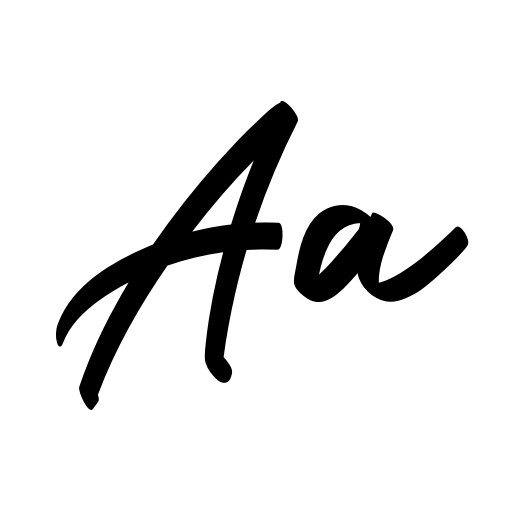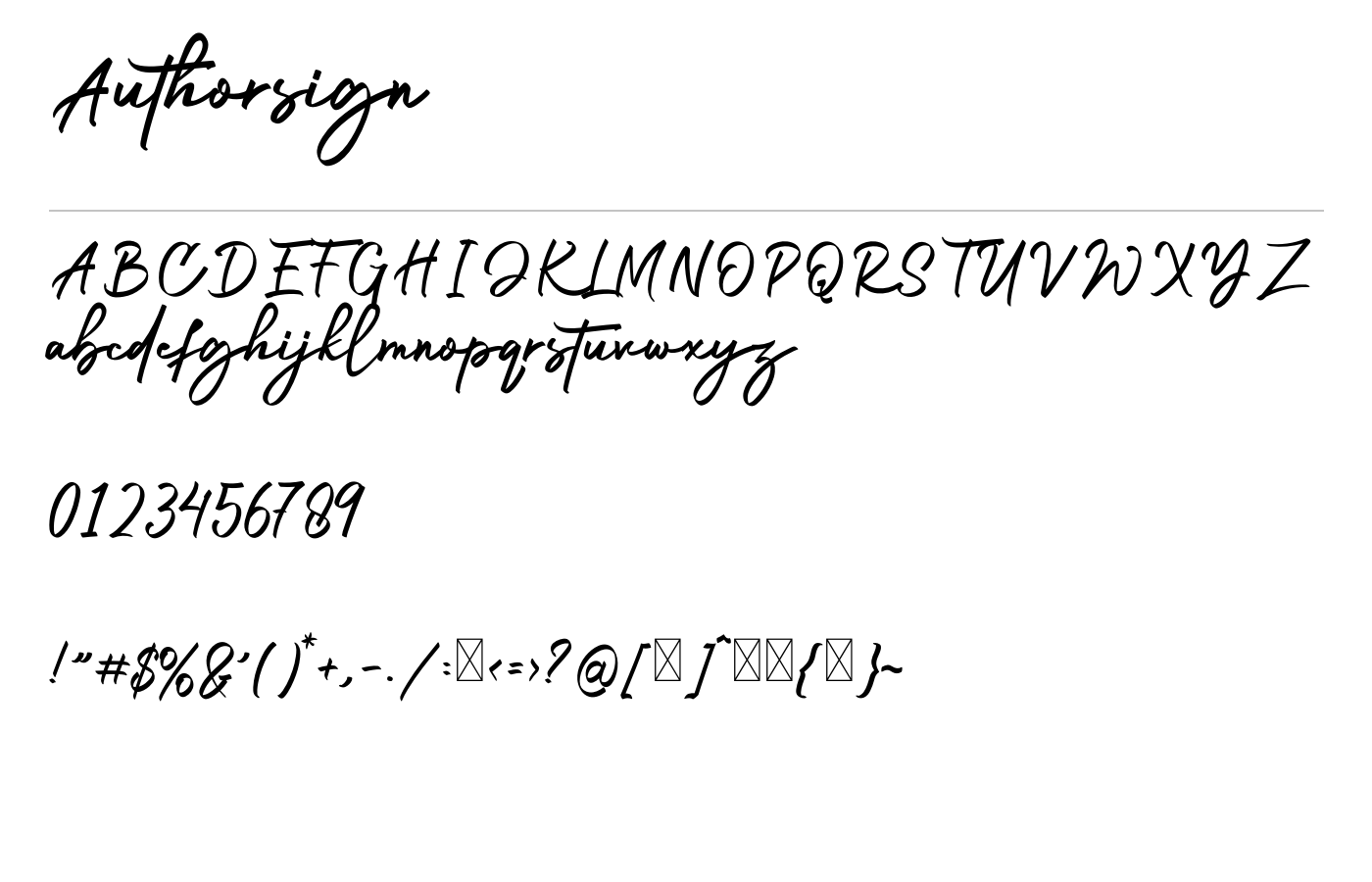
Authorsign is an elegant, handwritten script font that mimics natural, flowing cursive with a modern and personal touch. Its moderate contrast strokes and slightly slanted letterforms give it a warm, creative feel, making it ideal for branding, invitations, and stylish headlines where a friendly yet sophisticated vibe is desired. This font works well to add personality and charm to designs that seek an authentic, handcrafted look.
Authorsign Font
About Authorsign Font
| Font family | Authorsign Font |